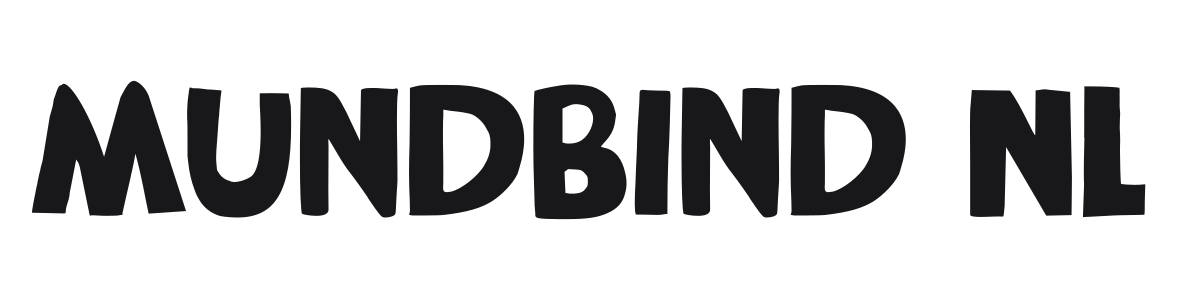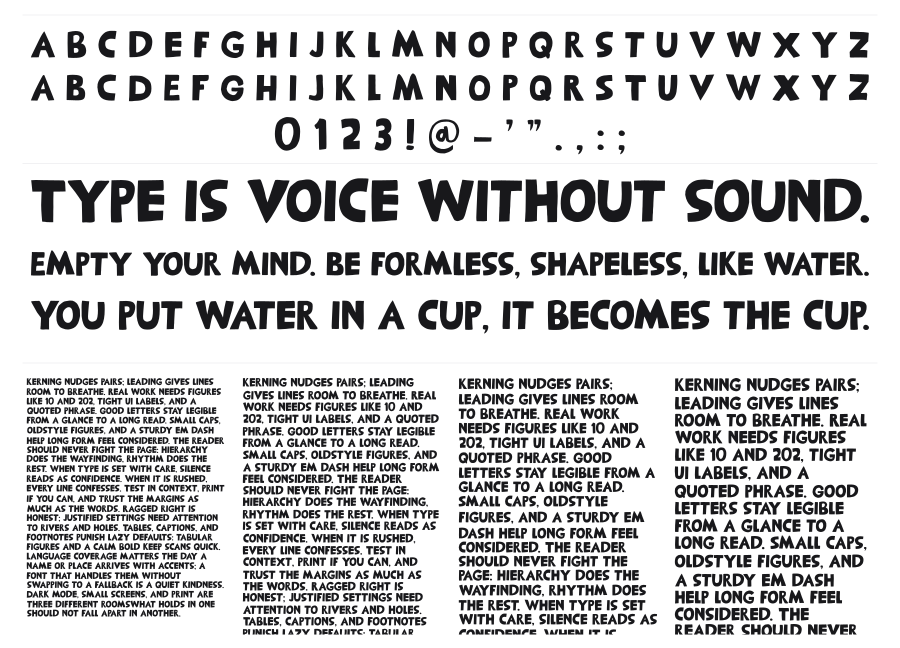
Mundbind NL
Mundbind NL is a heavy hand-lettered display font with the raw, chunky energy of comic-book typography. Each character has a slightly different weight and silhouette, giving the typeface an organic irregularity that feels drawn rather than designed. It hits hard at large sizes and works naturally for titles, packaging, and anything aimed at a young or playful audience.